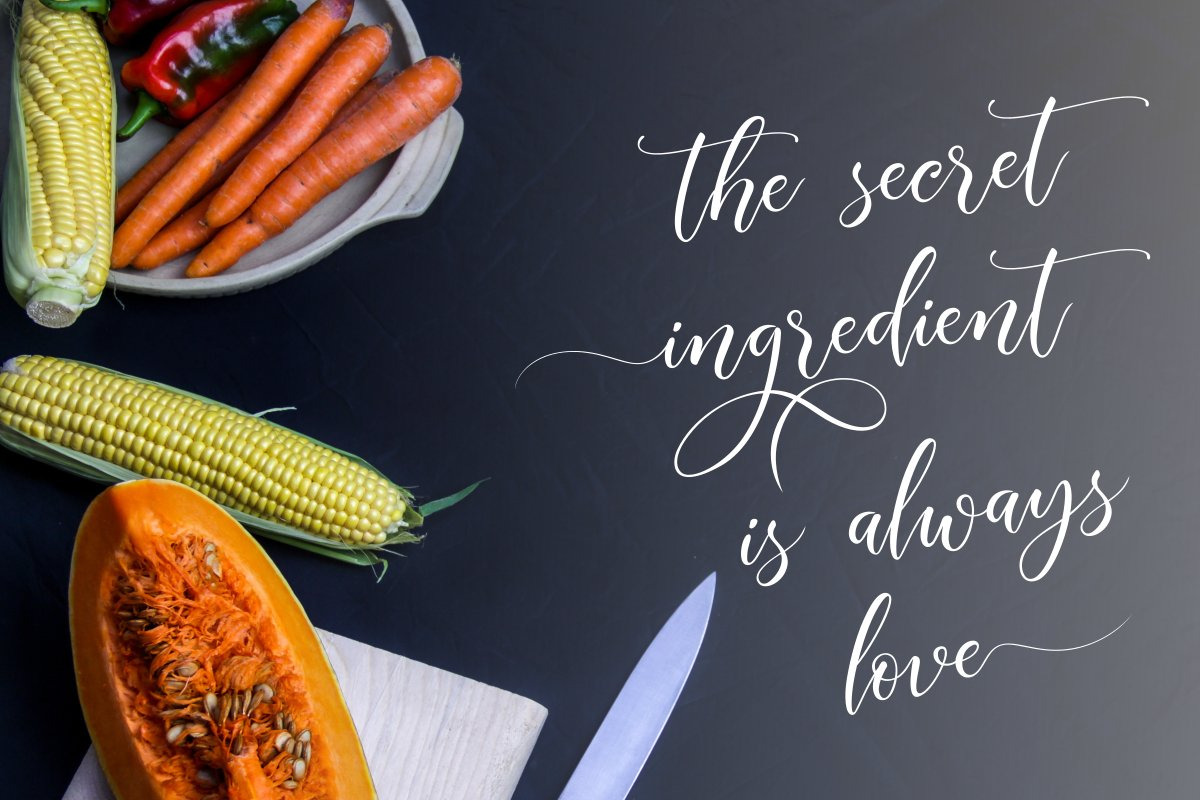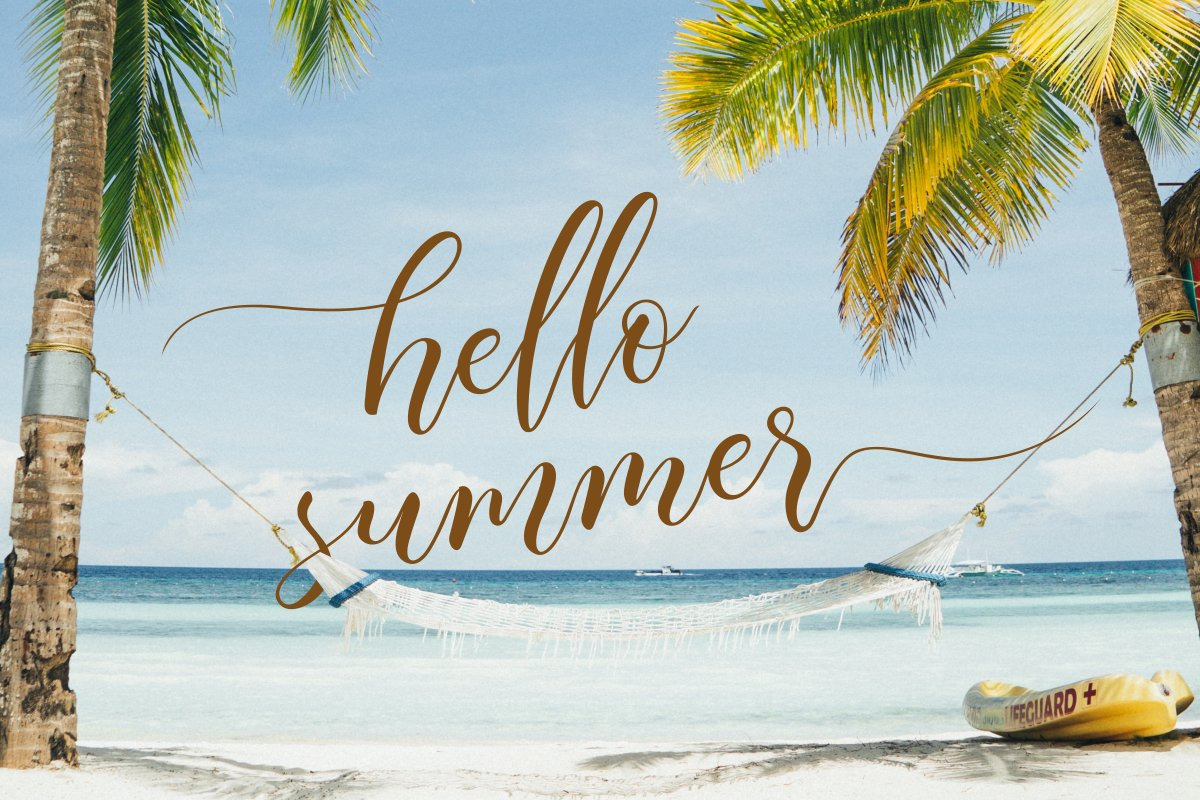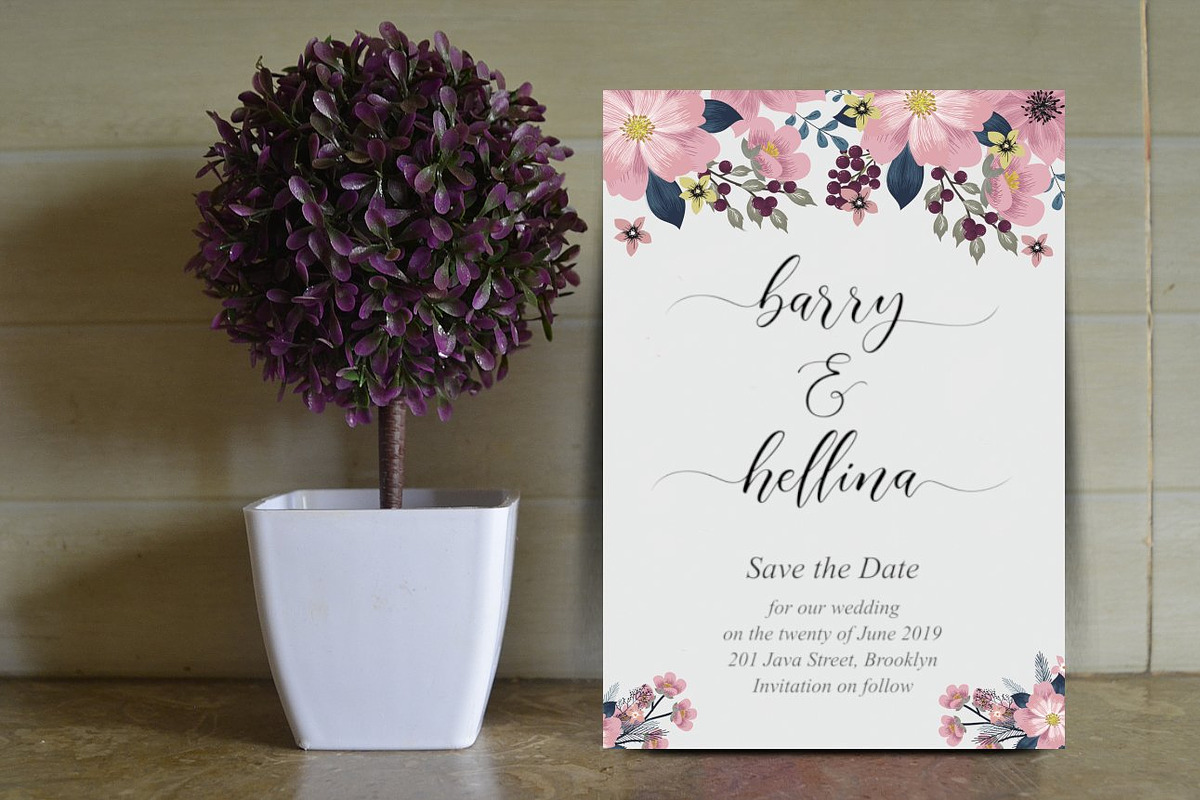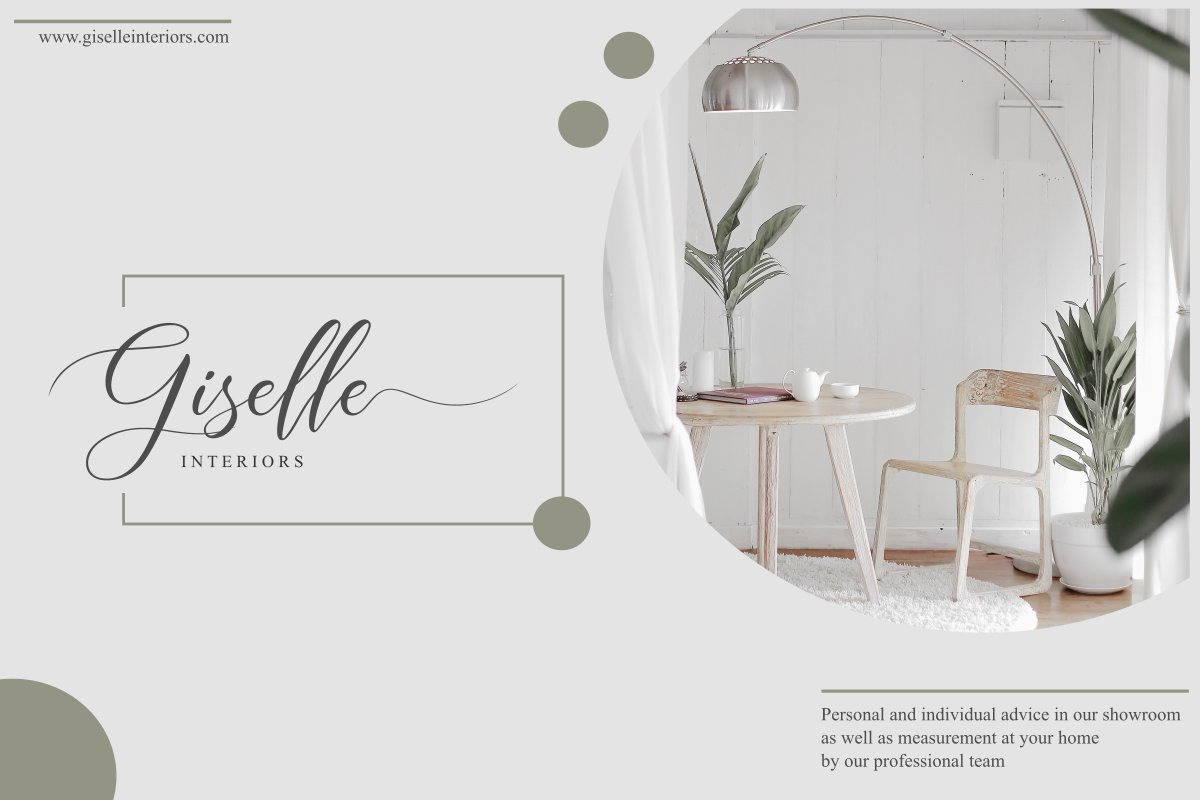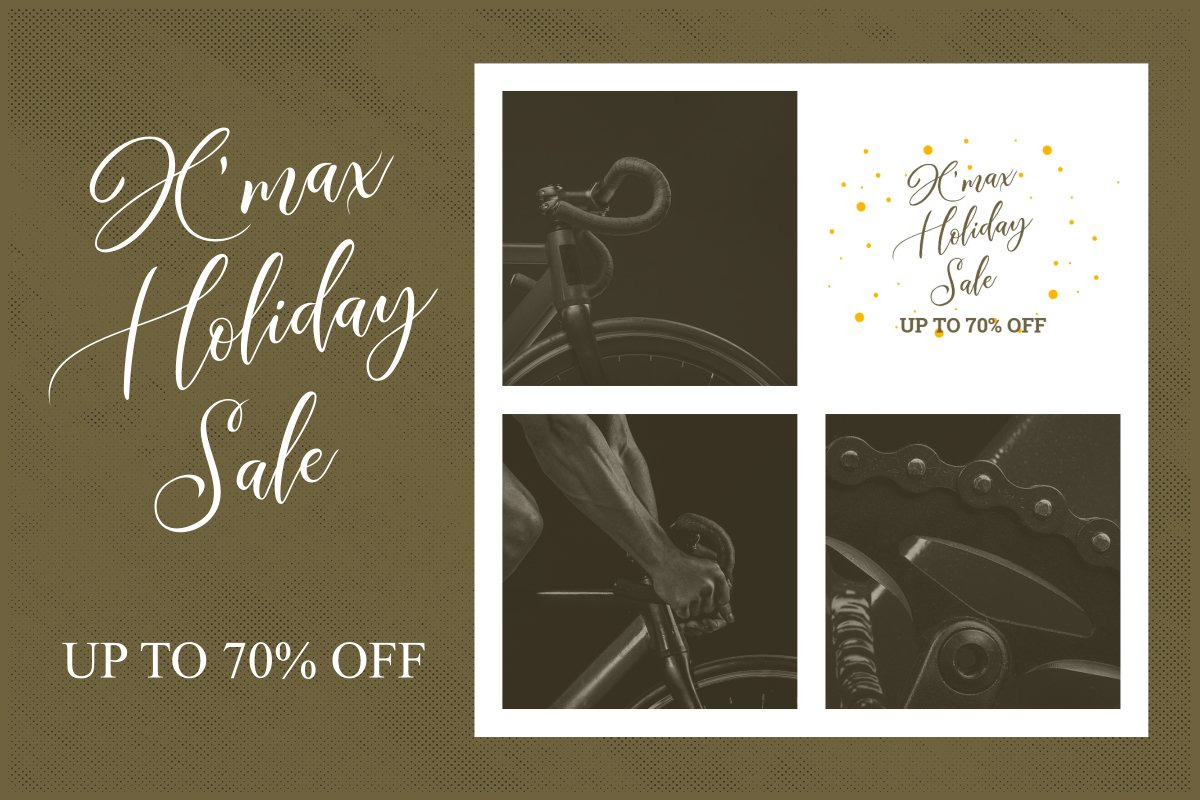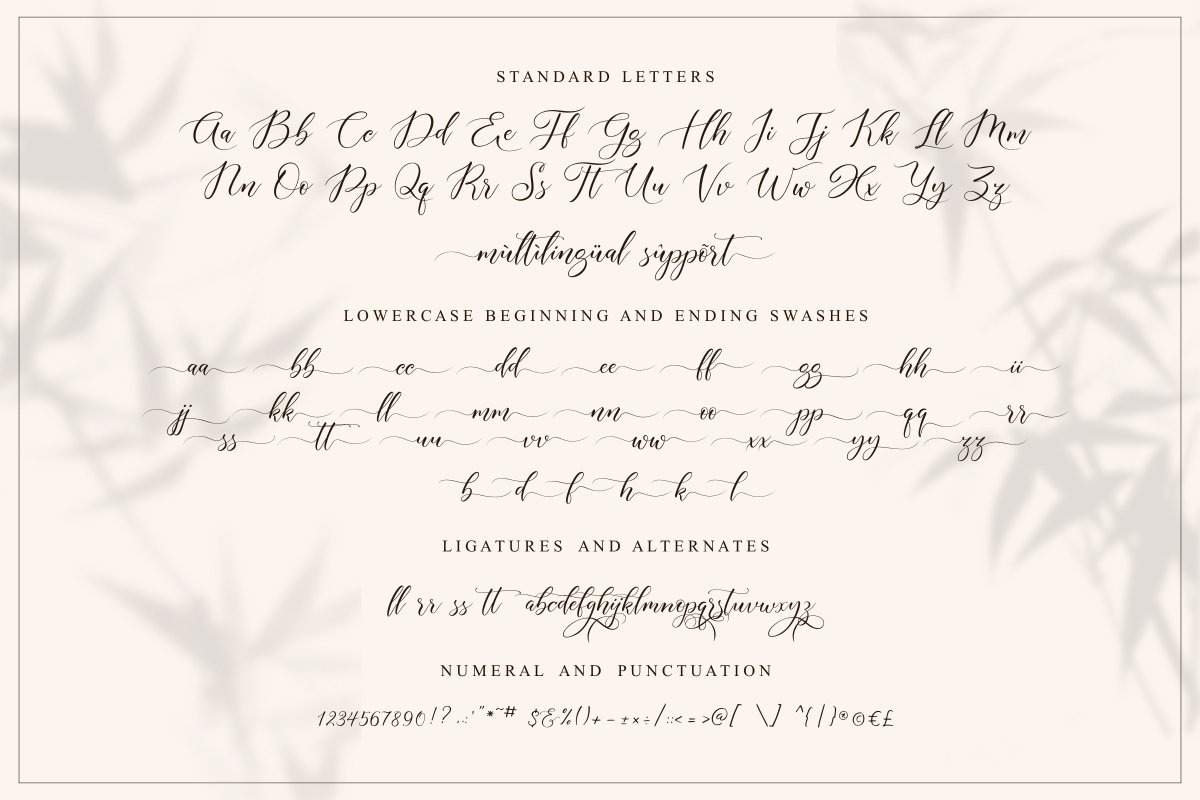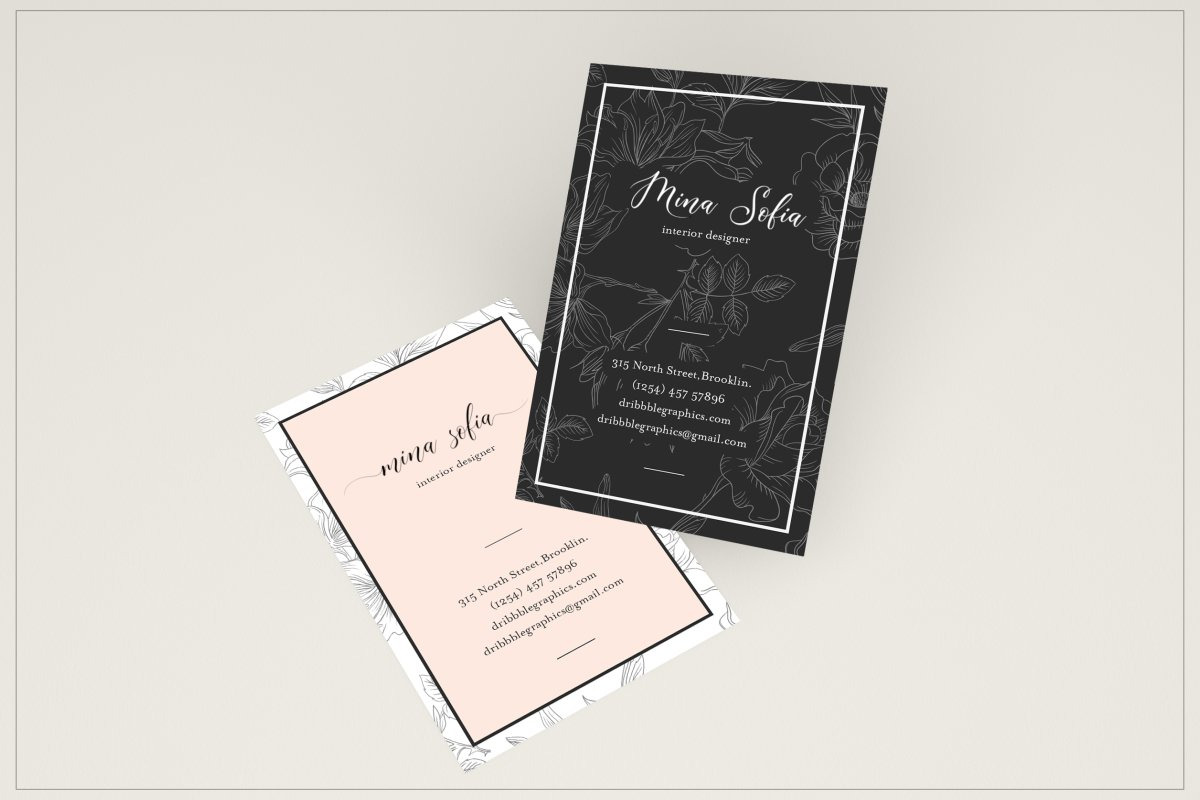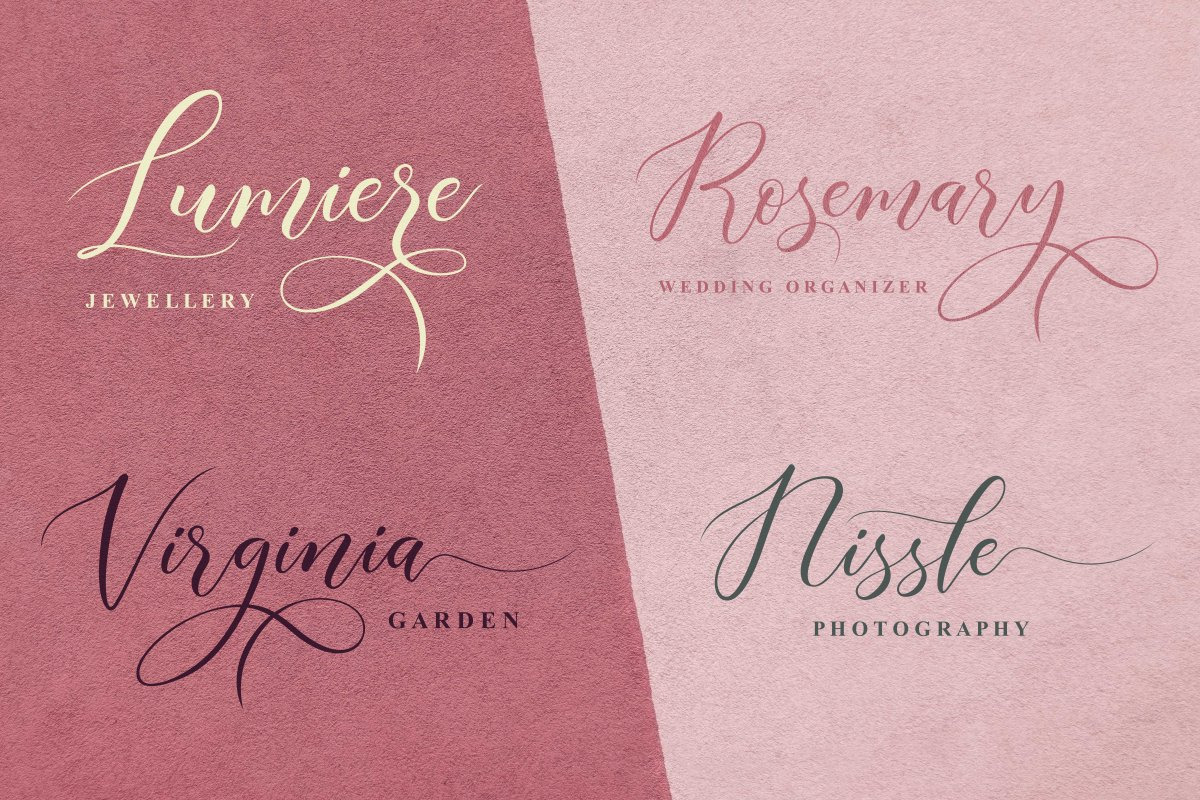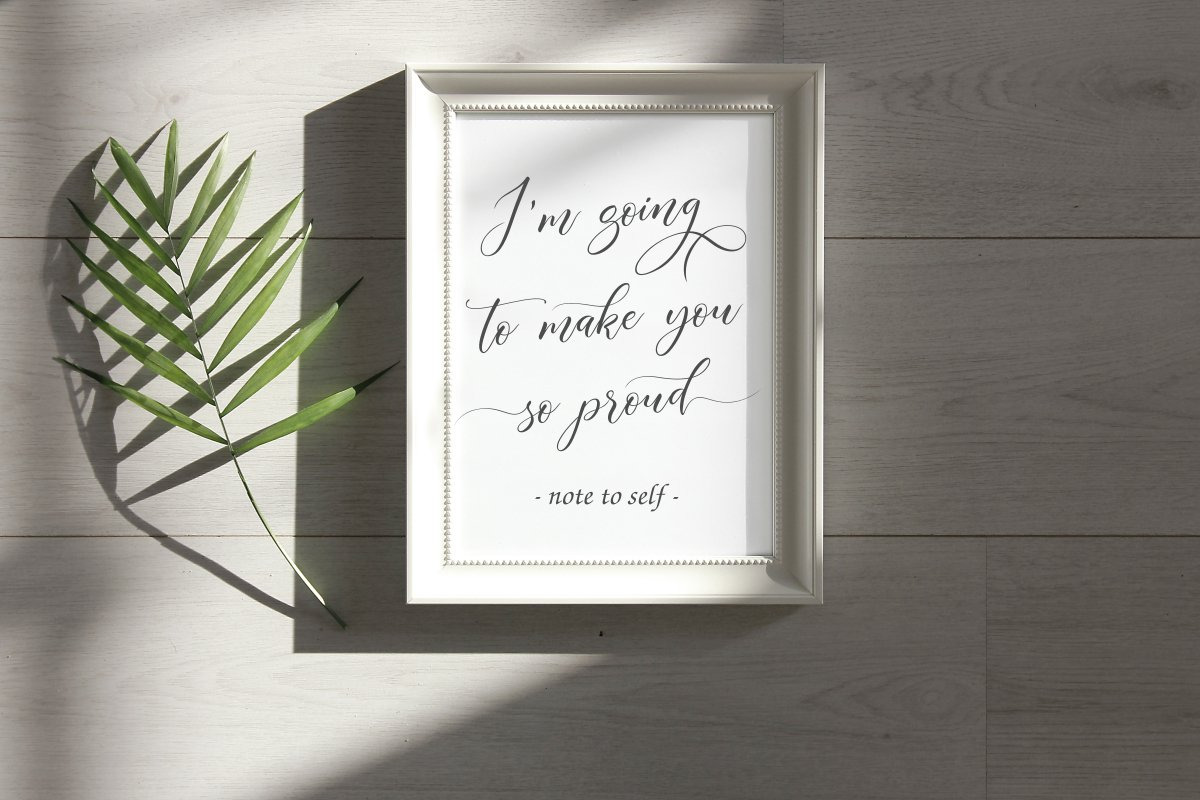
Aisyah | Modern Calligraphy
Aisyah is a beautiful and elegant modern calligraphy font with an incredibly delicate feel. It will effortlessly elevate any design project with its timeless sophistication. These are perfect for branding, invitations, business cards, weddings, logos, quotes, product packaging, and many more.
It’s including multilanguage, uppercase, lowercase, ligatures, and script version including beautiful swashes with alternates. The Open Type features can be accessed by using Open Types savvy programs such as Adobe Illustrator CS, Adobe Indesign & CorelDraw X6-X7, and Microsoft Word